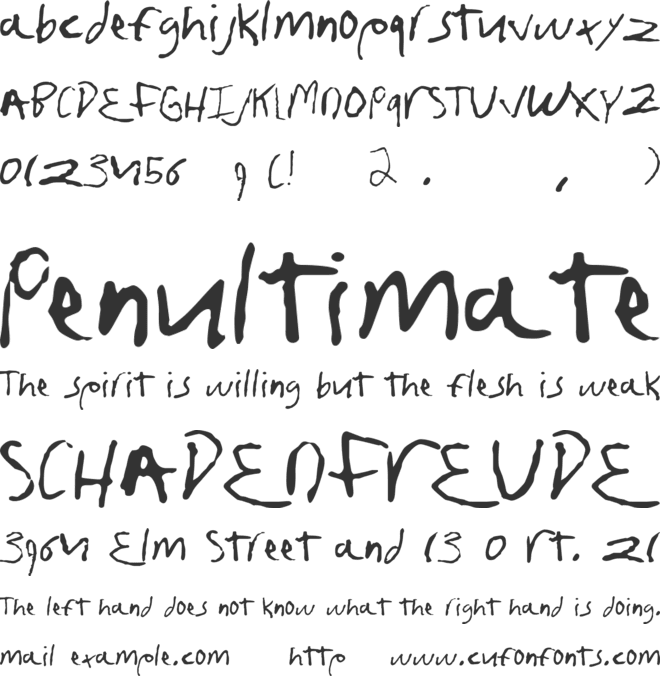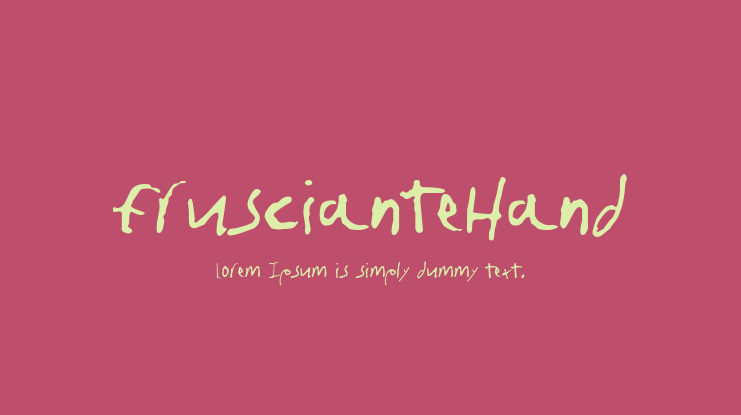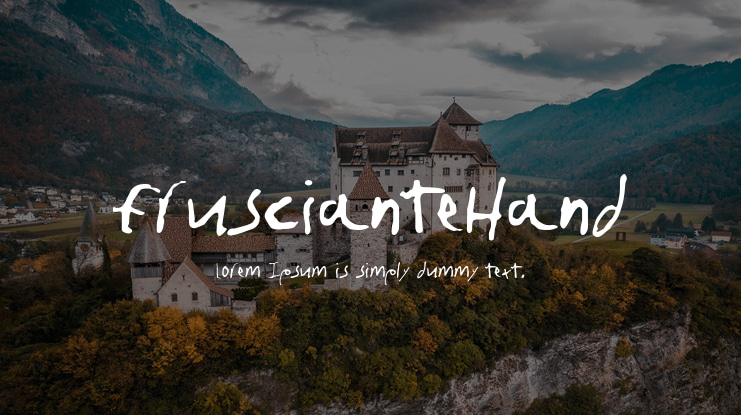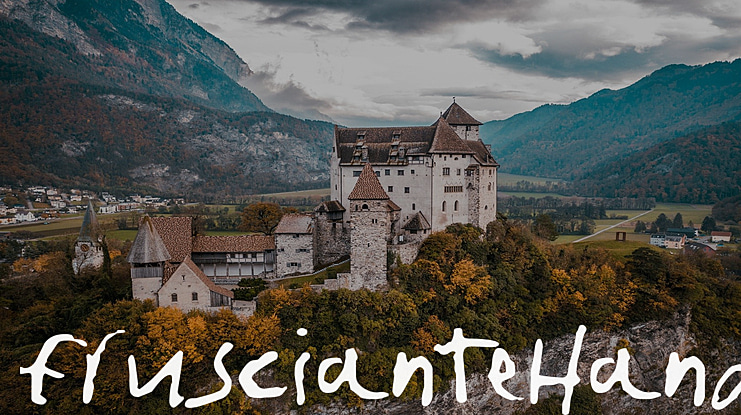
fruscianteHand Font
This messy font is the handwriting of John -RHCP- Frusciante. I scanned the characters from lyrics he wrote for his first solo-album: 'Niandra lades and usually just a t-shirt'. Some characters are missing simply because he didn't write them. Check out his great new album: 'To record only water for ten days'.New Red Hot Chili Peppers album expected in june...© J O E B O B graphics 2001